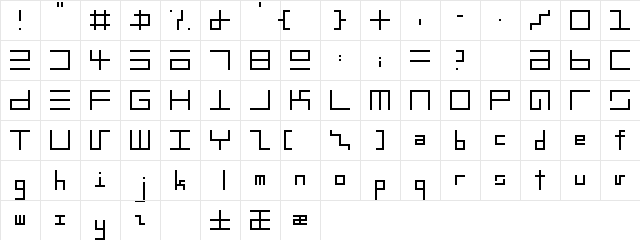
Epps Text Regular
Design Context for Epps Text Typeface
Epps Text is a composed and adaptable typeface that performs quietly and consistently across a wide range of design contexts.